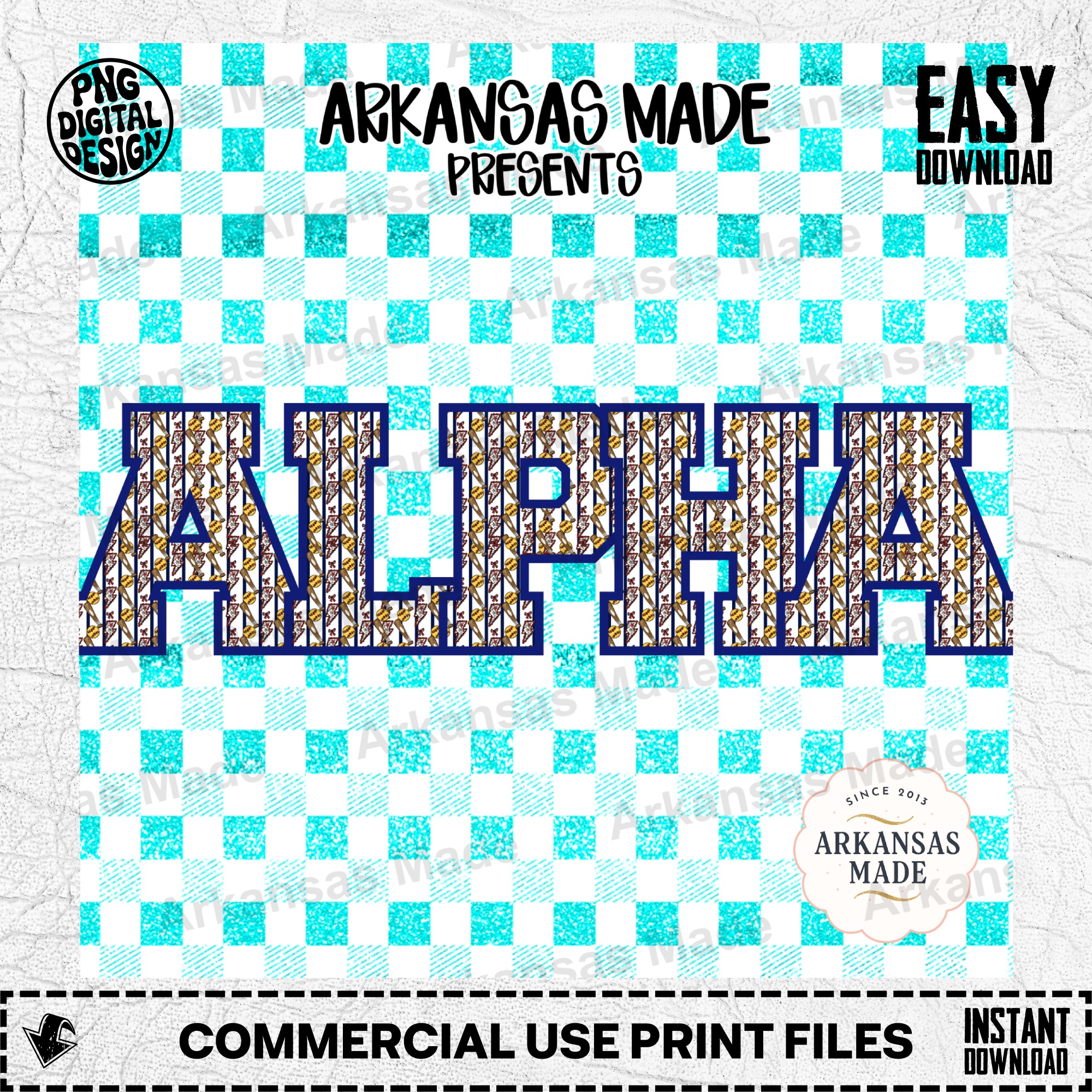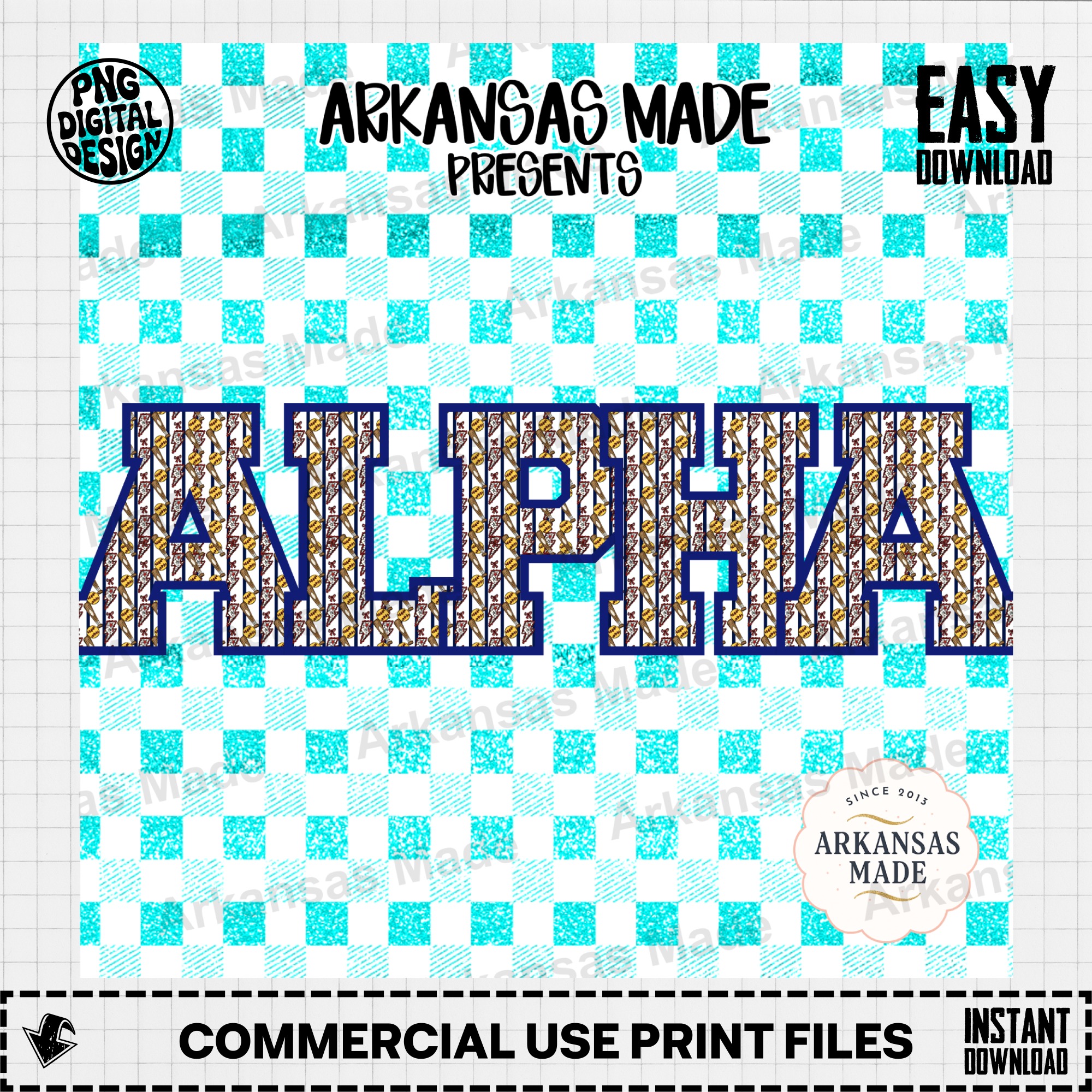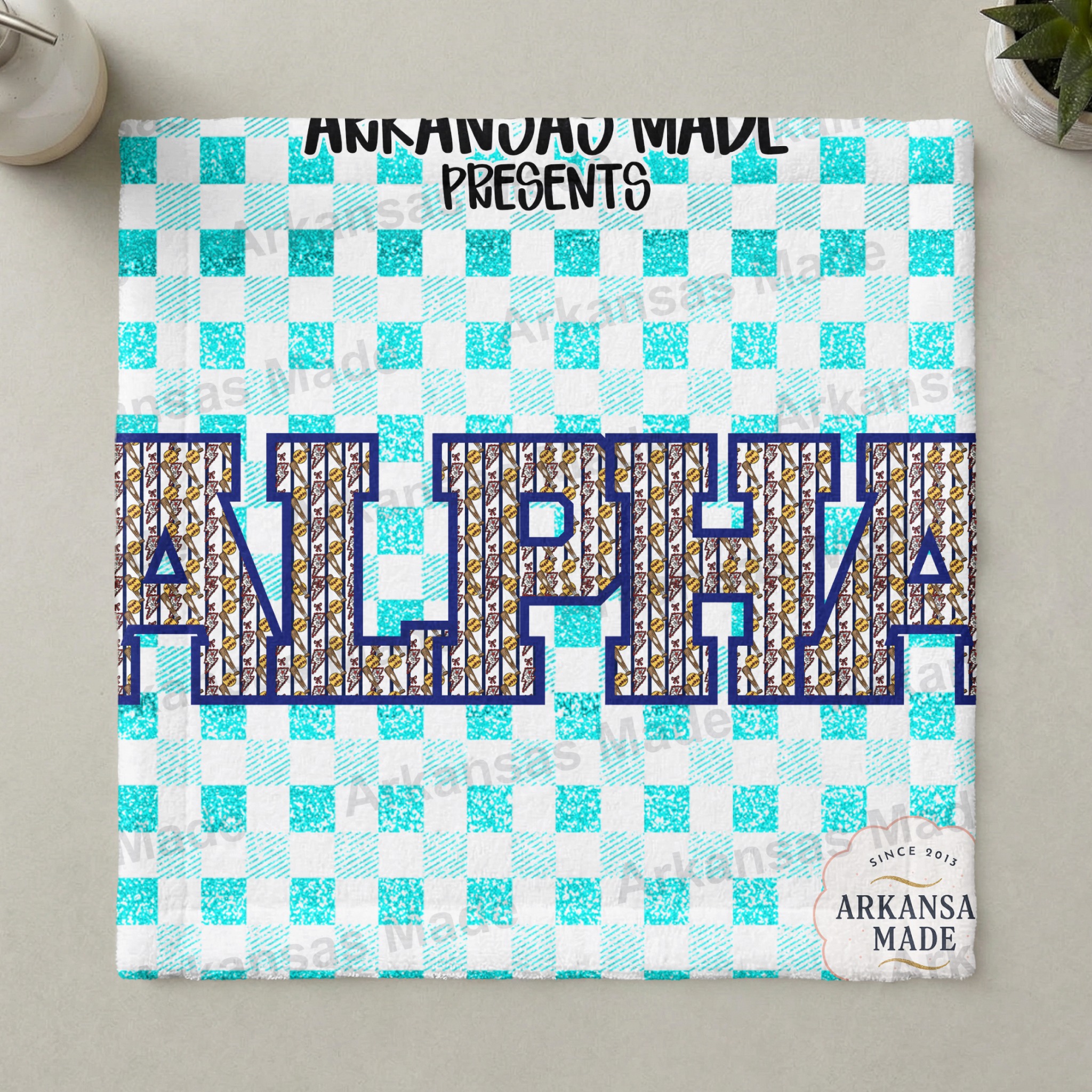
Baseball & Softball Alpha Set Digital Download PNG Letters | Game Day Sports Team Font for Sublimation Crafting DIY Projects | Athletic Mom
Elevate your designs with this vibrant Baseball and Softball Alpha Set Digital Download, perfect for game day crafts and custom team gear! Immerse yourself in the thrilling world of sports with bold letters adorned with baseball bats, softballs, and lightning bolts on a stylish striped pattern. This athletic alphabet is ideal for baseball and softball moms, coaches, players, or any fan looking to infuse team spirit into their projects. Use for personalized gifts, end-of-season celebrations, or DIY apparel that truly stands out.